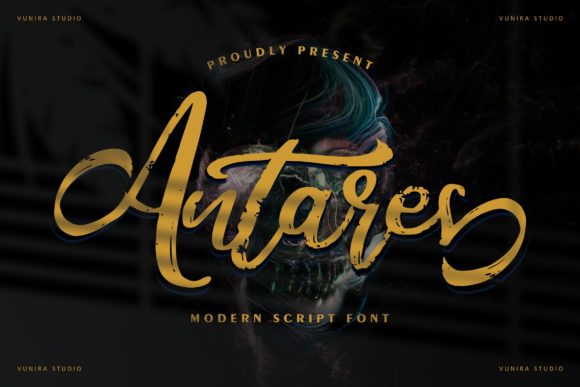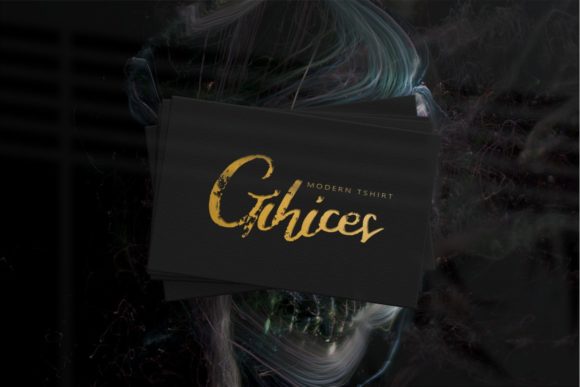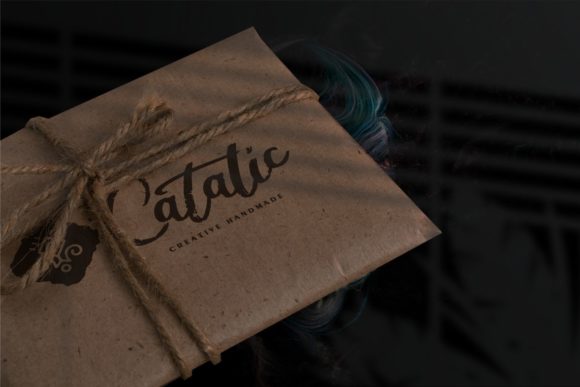
About Antares Font
Antares is a stunning brushed script font that exudes elegance and style. With its smooth curves and fluid strokes, this font adds a touch of sophistication to any design. Whether you’re working on fashion branding, editorial layouts, or any other creative project, Antares is sure to make a statement.
The brush-like quality of Antares gives it a dynamic and contemporary feel. The graceful curves and flowing lines create a sense of movement and energy, adding a touch of flair to your designs. Its versatility allows it to be used in various contexts, from logos and branding to magazine layouts and social media graphics.
One of the standout features of Antares is its ability to capture attention. The bold and confident strokes make a bold statement, drawing the viewer’s eye and leaving a lasting impression. It is the perfect choice for projects that require a strong visual impact and a touch of elegance.
Whether you’re designing for the fashion industry, creating editorial spreads, or simply want to add a touch of glamour to your projects, Antares is a font that will elevate your designs. Its refined and brushed script style exudes confidence and sophistication, making it an excellent choice for fashion branding or editorial designs.
Add Antares to your projects with confidence and watch as it brings a touch of ravishing beauty to your designs. Its smooth curves and stylish appeal will leave you with stunning results that are sure to impress.